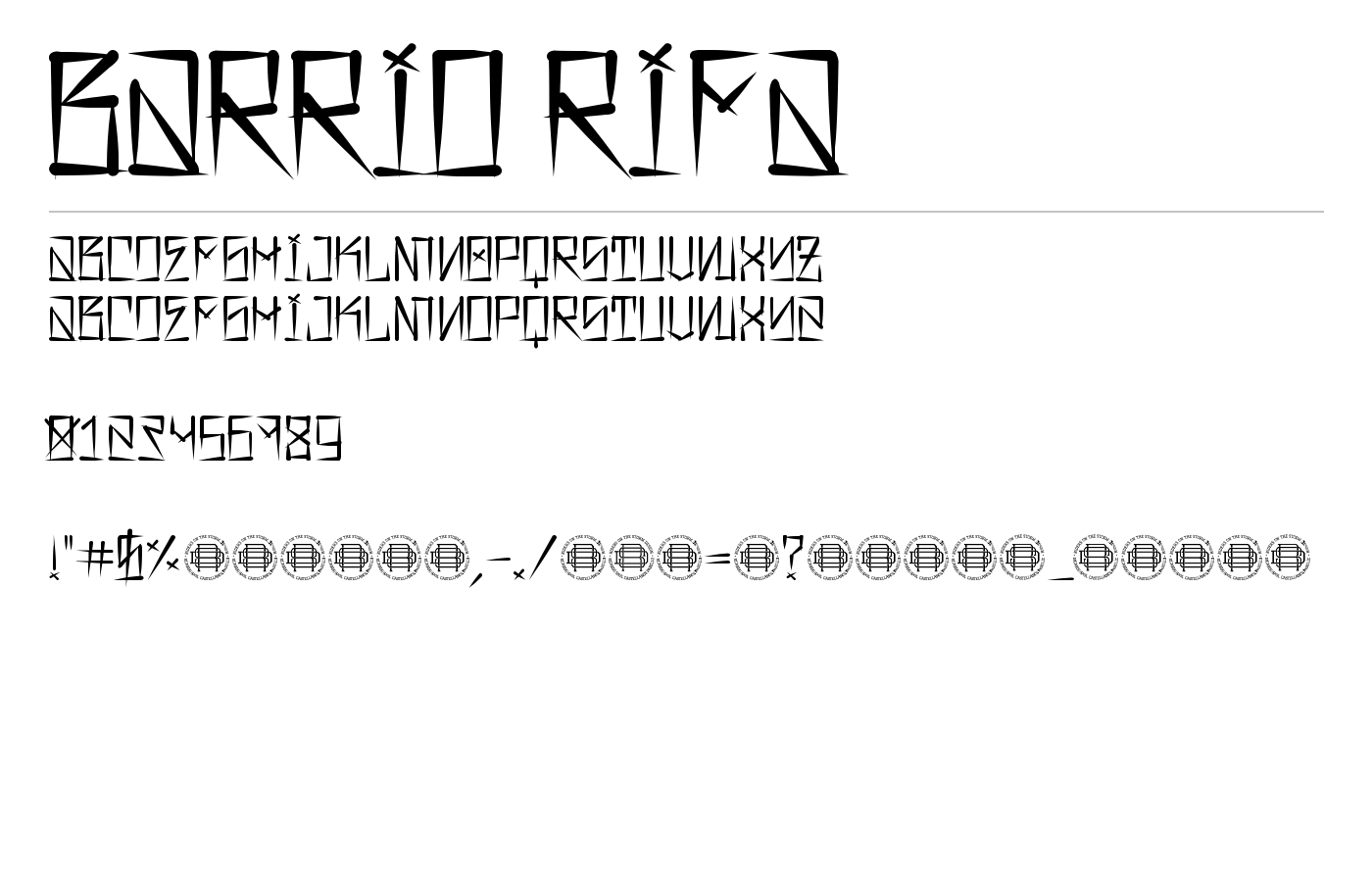
Barrio Rifa is a unique, edgy display font characterized by its sharp, angular strokes and hand-drawn, graffiti-inspired style. Its irregular, condensed letterforms with striking pointed terminals give it an urban, raw personality, making it ideal for bold, artistic projects like streetwear branding, posters, and album covers. This font stands out with its distinctive, rebellious vibe, perfect for conveying creativity and unconventional energy.
Barrio Rifa Font
About Barrio Rifa Font